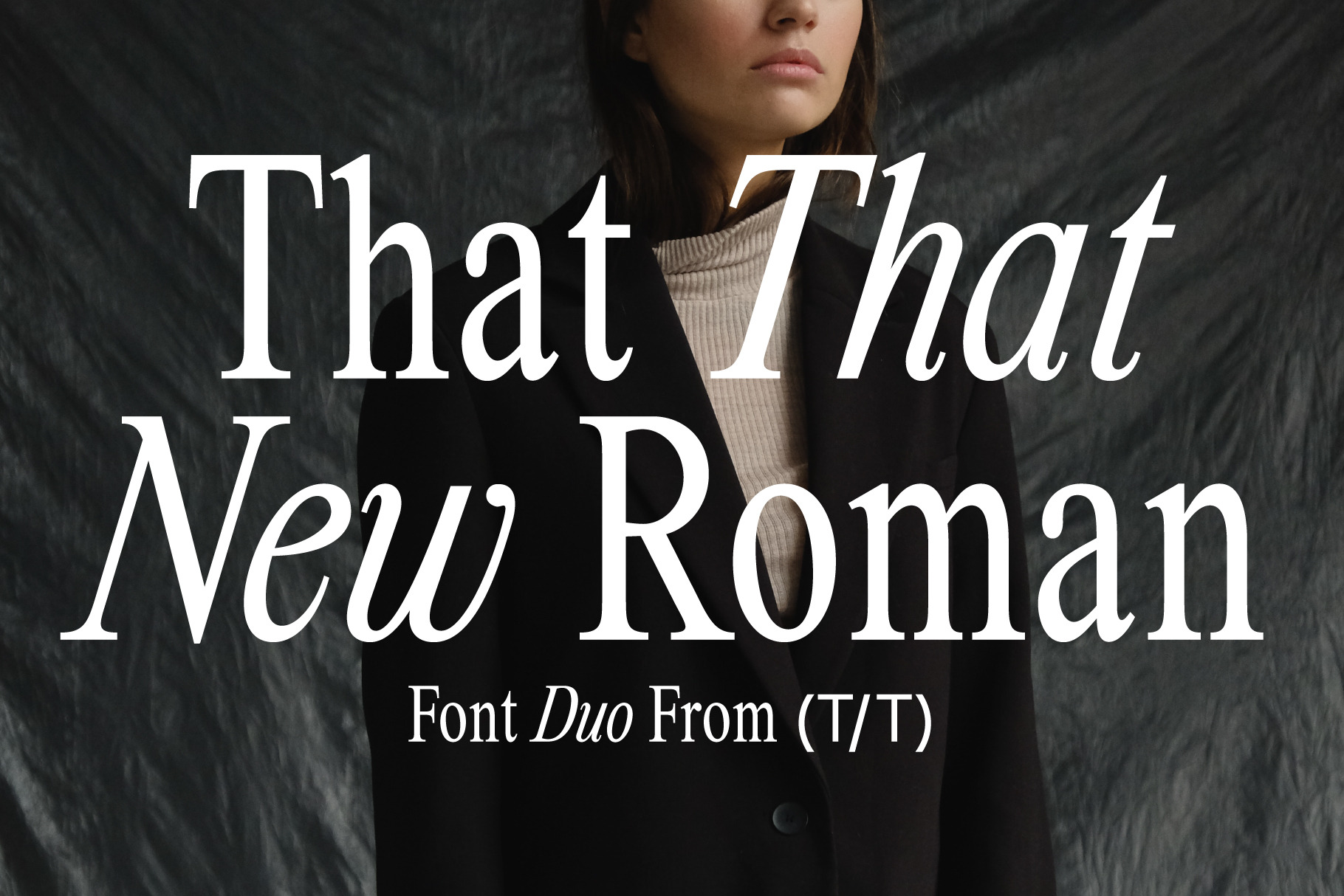
Nineties Editorial Font Duo
That That New Roman Font Duo is a modern 90's inspired font with an elegant spin. that comes in roman and italic. It is condensed and refined to work for body copy and headlines. It hits all the right notes of nostalgia and retro vibes while remaining contemporary. The condensed nature of this font makes it perfect for saying a lot with a little space. Throw it on Instagram, magazines, posters, branding, and whatever your heart desires.